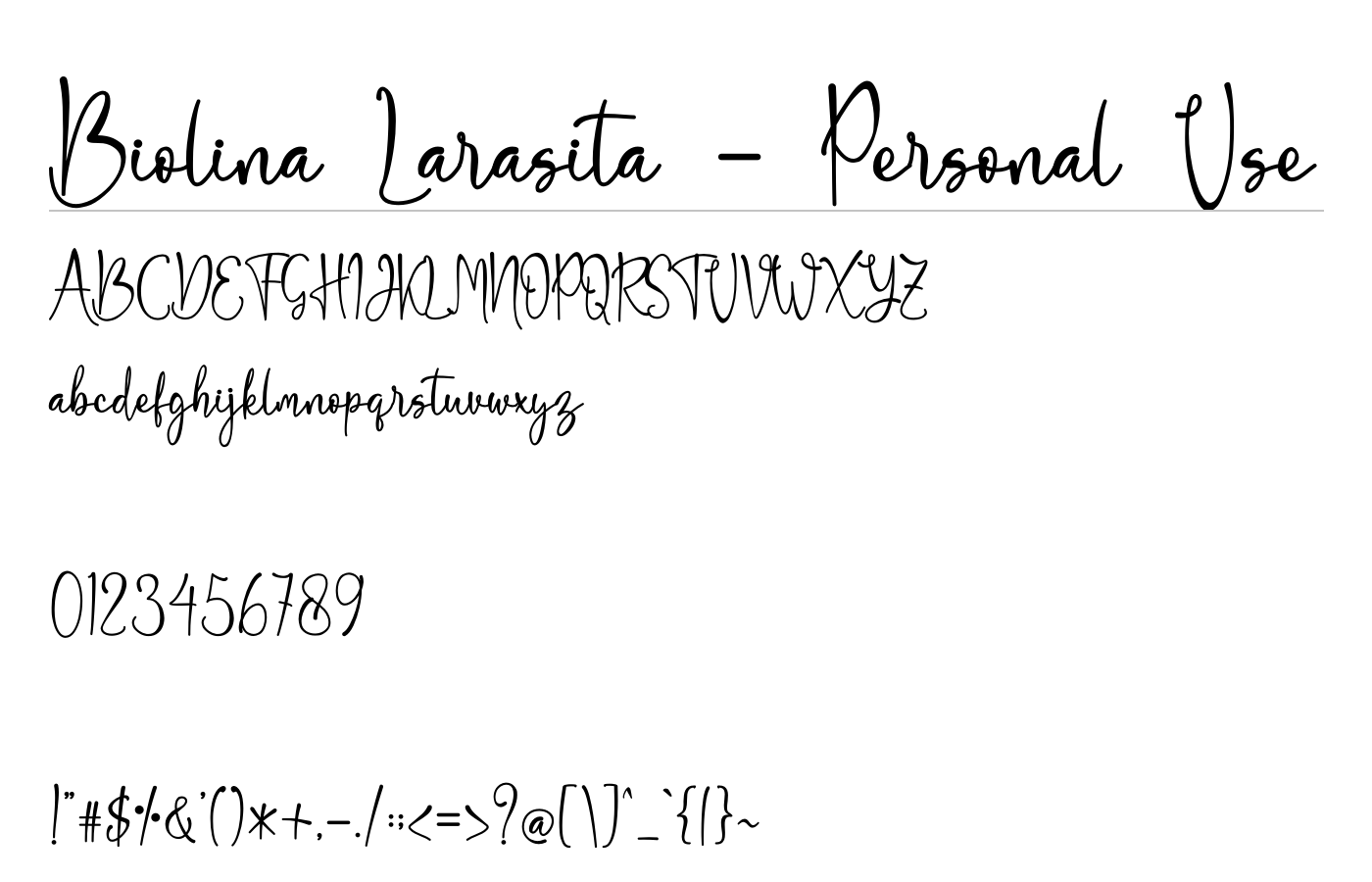
Biolina Larasita is a delicate, handwritten script font with a playful yet elegant personality. Its slender, flowing strokes and tall, narrow letterforms give it a fresh, charming feel, perfect for personal projects, invitations, and creative branding where a friendly and stylish touch is desired. This font works beautifully for designs that need a light, casual vibe while still maintaining readability and grace.
Biolina Larasita - Personal Use Font
About Biolina Larasita - Personal Use Font
| Font family | Biolina Larasita - Personal Use Font |
| Designer | Ahmad Afandi |
| Trademark | Letterafa |